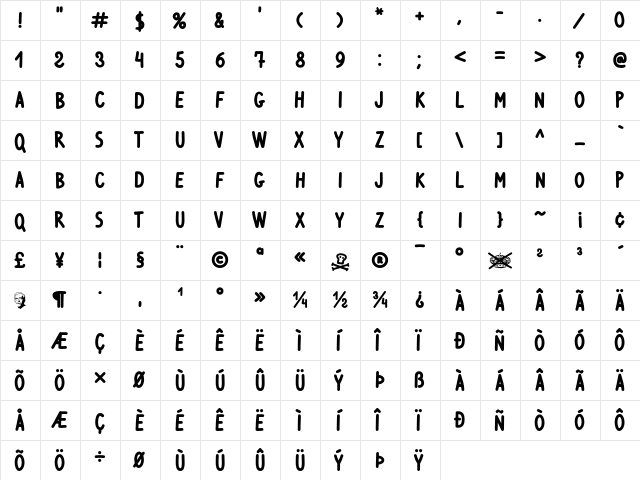
Ventura Edding Bold
| Foundry | Josep Patau Bellart |
| Designer | Josep Patau Bellart |
Design Context for Ventura Edding Typeface
Ventura Edding takes a measured approach to typography — its balanced proportions and neutral character make it a reliable workhorse for both digital and print work. The heavy weight commands attention and anchors typographic hierarchies.